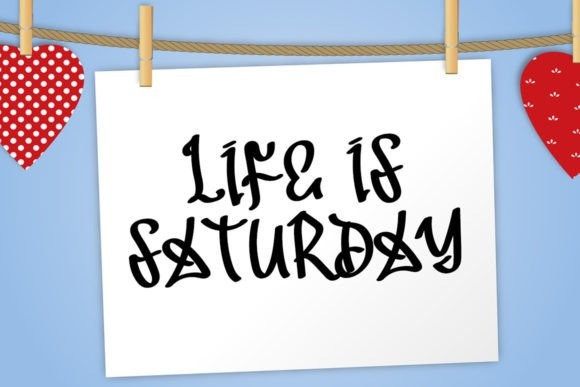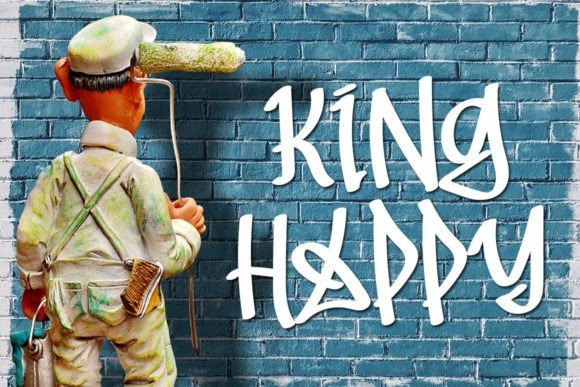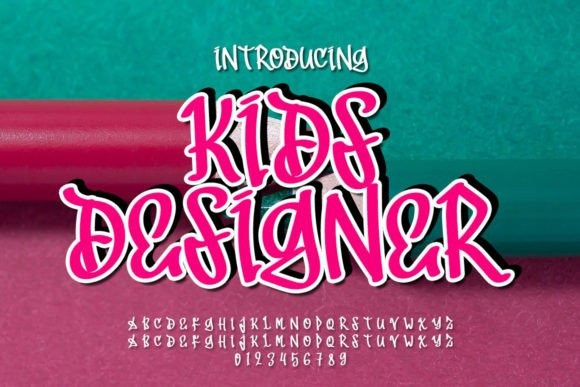
Kids Designer Font
Kids Designer Font is a beautiful and sweet display font. It is fresh, clean, and modern. This font will look amazing in a great number of projects, both formal and informal. It will add an incredibly joyful touch to your designs. Fonts are designed to simplify your design. By using this font, your business will look more beautiful.